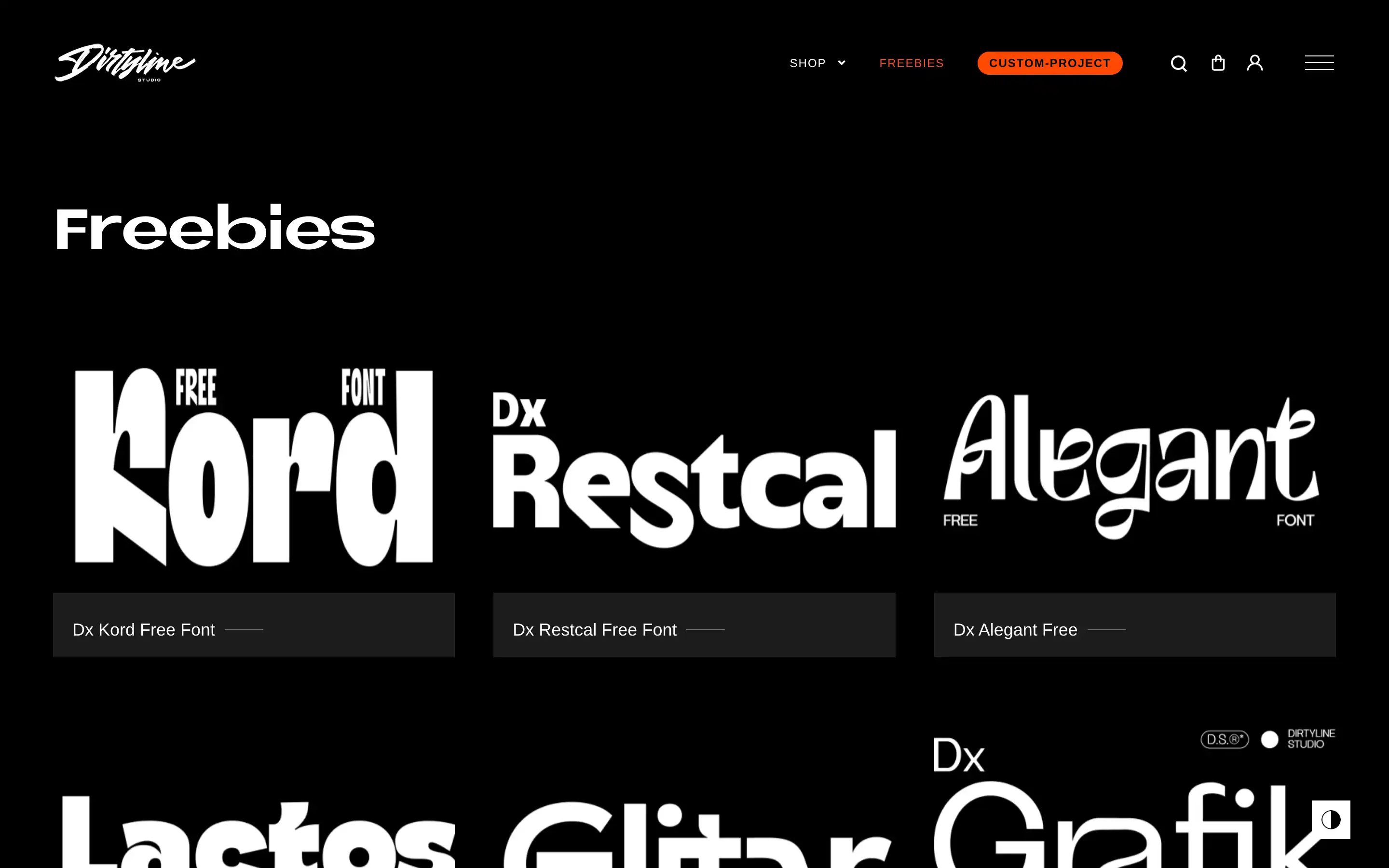
Dirtyline Studio offers a fantastic selection of free design resources for anyone looking to enhance their creative projects. Explore a diverse collection of free fonts, graphics, and templates that cater to a wide range of design needs.
Check out the sleek Dx Alegant font or the bold Dx Dynamix — perfect for adding that special touch to your projects. You can also grab the Seulanga Typeface and Lanya Social Media Template, which are all available for free download.
A variety of free design resources, including fonts, graphics, and templates, to enhance creative projects.